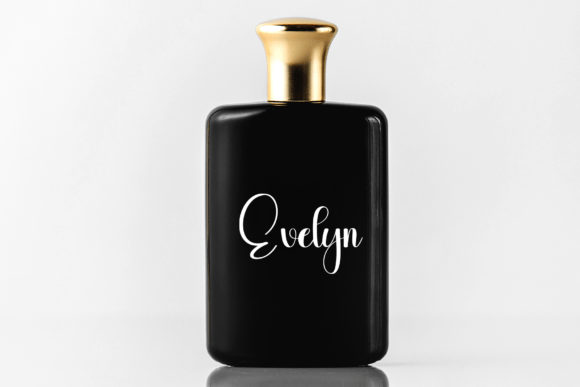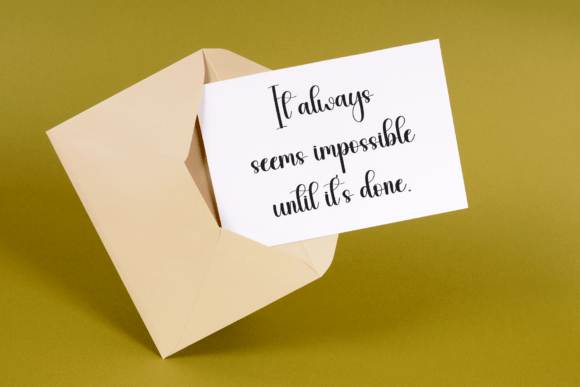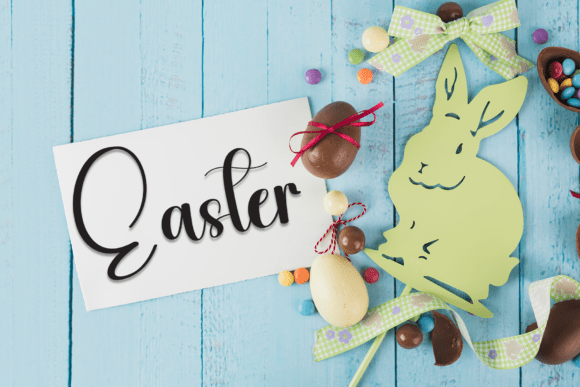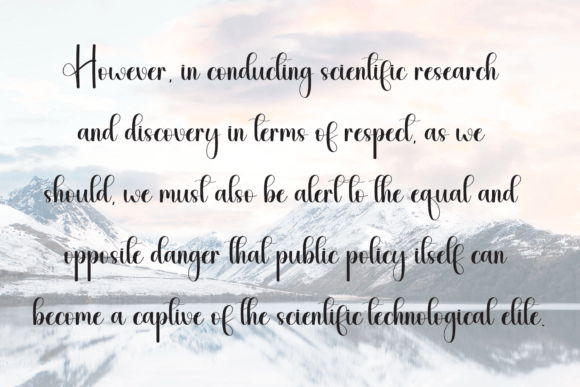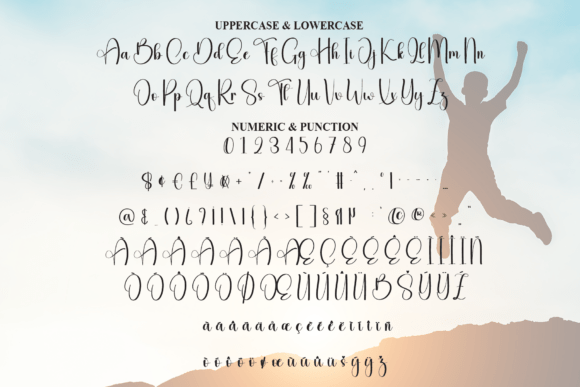
Introducing Greathing Font: Elevate Your Designs with Elegance and Charm
Are you tired of using the same old fonts for your designs? Look no further than Greathing Font, a stunning handwritten script font that adds a touch of sophistication and refinement to any project. With its fluid, graceful strokes, Greathing is perfect for designers and crafters looking to create beautiful branding, invitations, and stationery that exude elegance and charm.
The Characteristics of Greathing Font
Greathing Font is a stylish handwritten script font that boasts smooth curves and a natural flow, creating a timeless and refined look for any design. Its fluid strokes and elegant letterforms make it perfect for a variety of applications, from luxury branding to wedding invitations and stationery. The font’s refined appearance is sure to impress, adding a personal and sophisticated touch to any project.
Greathing Font is a versatile font that can be used by designers and crafters for a wide range of projects. Whether you’re creating a brand identity, designing wedding invitations, or crafting beautiful stationery, Greathing is the perfect choice. Its elegant appearance and smooth curves make it easy to read and visually appealing, ensuring that your designs will stand out from the crowd.
Key Features of Greathing Font
- Fluid, graceful strokes: Greathing Font features fluid, graceful strokes that create a smooth and elegant appearance.
- Smooth curves and natural flow: The font’s smooth curves and natural flow create a timeless and refined look for any design.
- Perfect for branding, invitations, and stationery: Greathing is ideal for designers and crafters looking to create beautiful branding, invitations, and stationery.
- Personal and sophisticated touch: The font adds a personal and sophisticated touch to any project, making it perfect for luxury branding and high-end designs.
How to Use Greathing Font
To get the most out of Greathing Font, here are a few tips and inspiration ideas:
- Pair with bold fonts: Pair Greathing Font with bold fonts for a striking contrast that adds visual interest to your designs.
- Use for headlines and titles: Use Greathing Font for headlines and titles to add a touch of elegance and sophistication.
- Experiment with colors: Experiment with different colors and textures to add depth and interest to your designs.
Greathing Font is a beautiful handwritten script font that adds a touch of elegance and charm to any design. With its fluid, graceful strokes and smooth curves, it’s perfect for designers and crafters looking to create stunning branding, invitations, and stationery. Whether you’re a seasoned designer or just starting out, Greathing Font is a must-have font that will elevate your designs to the next level.